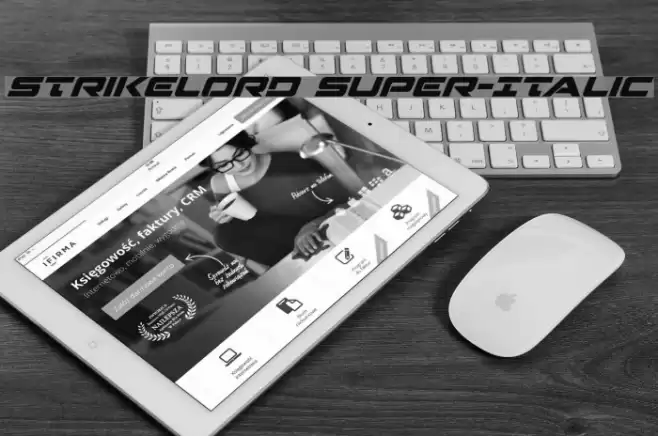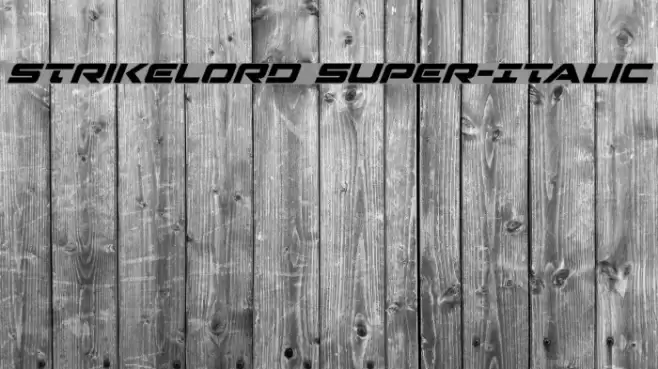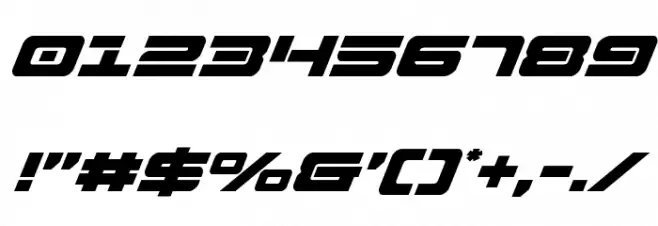
Strikelord Super-Italic Font
Strikelord Super-Italic Description
This font features a dynamic and futuristic design with sharp, angular lines and a forward-leaning italic style. The characters are bold and impactful, with a distinct geometric structure that conveys a sense of speed and modernity. The uppercase and lowercase letters maintain a consistent style, with the lowercase slightly smaller but equally bold. The numerals are designed to match the angular theme, providing a cohesive look across all characters. Special characters are included, maintaining the same stylistic elements, making this font versatile for various applications.
A bold, futuristic italic font with sharp, angular lines from Uncategorized fonts.
- Proposed Projects: Ideal for projects requiring a modern, tech-inspired look such as video game titles, sci-fi movie posters, or branding for technology companies.